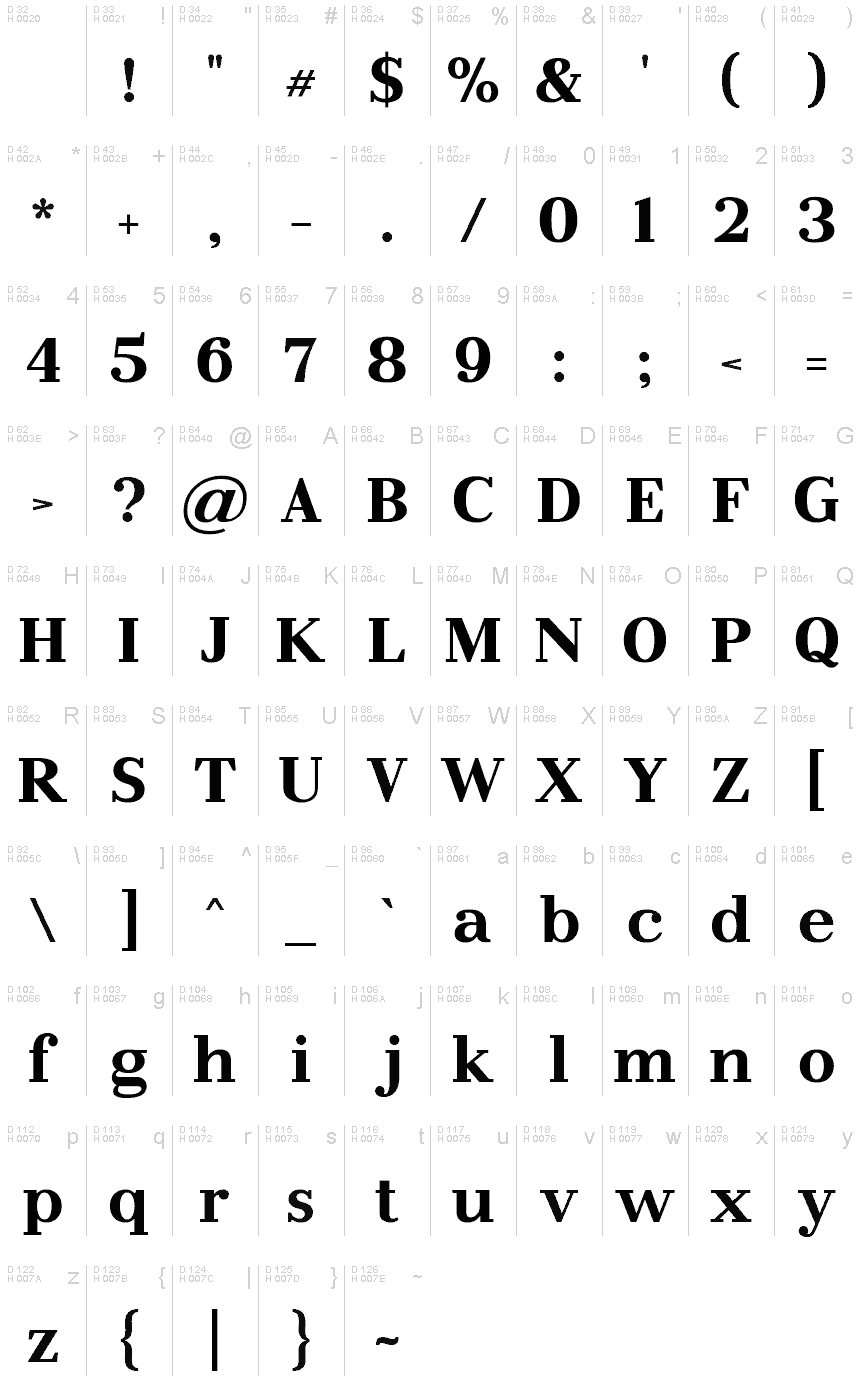
Litoland
Litoland, a captivating serif font crafted by Typesgal, radiates a timeless elegance and sophistication. With its harmonious balance of sharp serifs and refined curves, this typeface exudes a sense of grandeur and authority. The intricate details and subtle stroke variations lend the Litoland font a distinctive character, making it a versatile choice for a wide range of design applications.
This font's adaptability shines through in its ability to seamlessly integrate into various design contexts, from high-end editorial pieces to elegant branding initiatives. The Litoland typeface's versatility allows it to elevate the visual impact of headings, subheadings, and body text, making it a compelling option for projects that require a touch of refined typographic style.
The fonts contain 7 sets of stylistic characters (swashed letters, curles, alternatives).